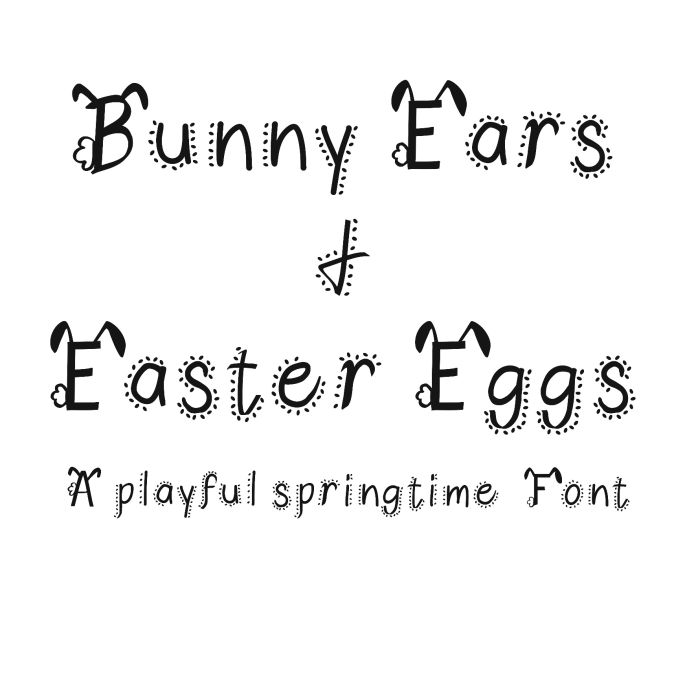
Bunny Ears and Easter Eggs is a whimsical, hand-drawn font perfect for adding a touch of springtime fun to your designs. This .otf font includes uppercase and lowercase letters, common punctuation, and basic math symbols. Uppercase characters playfully incorporate unique bunny ear and tail designs, while lowercase letters and symbols are adorned with charming Easter eggs. Ideal for creating eye-catching cards, posters, and other projects needing a unique and festive touch for Easter and spring celebrations.